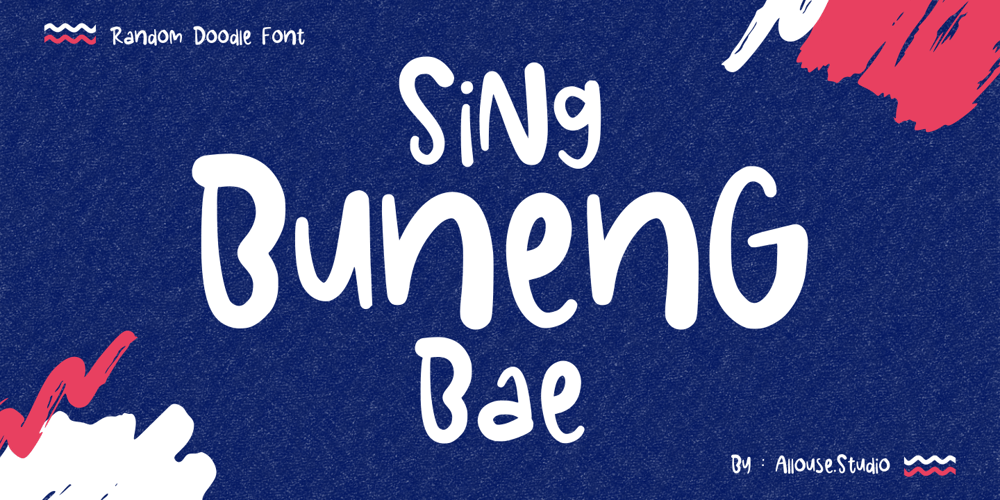
Sing Buneng Bae
Sing Buneng Bae font
Sing Buneng Bae Font Family was designed by Fachrizal Yusuf and published by Allouse Studio. Sing Buneng Bae contains 1 styles and family package options. Proudly Presenting, Sing Buneng Bae a Random Doodle Font.Sing Buneng Bae also come along with Multi-Lingual Support that will fulfill your need.We highly recommend using a program that supports OpenType features and Glyphs panels like many of Adobe apps and Corel Draw, so you can see and access all Glyph variations.Sing Buneng Bae is perfect for any tittle or description, product packaging, branding project, megazine, social media, wedding, or just used to express words above the background.Enjoy the font, feel free to comment or feedback, send me PM or email. Thank You!